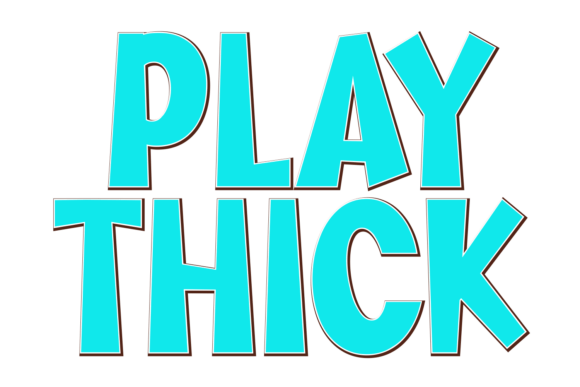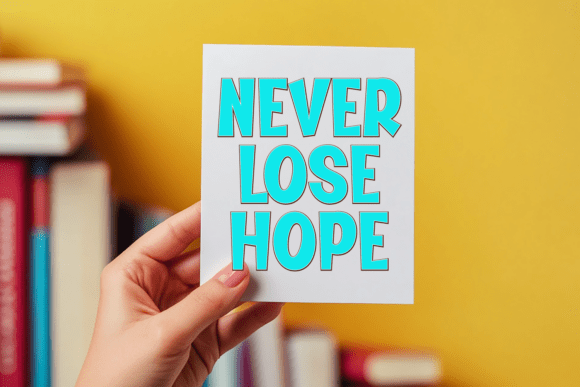
Introduction to Pearl Moon Font
Have you ever been stuck in a creative rut, searching for the perfect font to elevate your design project? The hunt is over. We’re excited to introduce you to Pearl Moon Font, a stunning display font that’s about to become your go-to choice for all your creative endeavors.
Imagine yourself in a vintage record store, surrounded by the sounds of the 70s and 80s. The Pearl Moon Font takes you on a time-travel adventure, infusing your designs with a bubbly and bold charm that’s perfect for cartoon and comic-themed projects. Whether you’re a seasoned designer or just starting out, this versatile font is a valuable addition to your design resource arsenal.
Key Features of Pearl Moon Font
- Transparent background for seamless integration into creative projects
- High-quality, unique design elements perfect for design resources
- Includes 5 styles and 30 glyphs for versatility in design
- Resolution-independent, scalable design for use in various mediums
- Perfect for creative projects requiring a touch of elegance and sophistication
- Supports various languages, including Latin, Cyrillic, and Greek alphabets
Honest Review: Pearl Moon Font
As a designer, I’m always on the lookout for high-quality design resources that can elevate my creative projects. Recently, I had the chance to try out the Pearl Moon Font, and I must say, it’s been a pleasant surprise.
- ✨ Elegant and sophisticated feel
- ✨ Highly customizable
However, I do have to mention that the Pearl Moon Font can be a bit limited in terms of its use cases. It’s perfect for formal and creative projects, but may not be the best choice for more casual or informal designs.
Overall, I’m quite impressed with the Pearl Moon Font. It’s a great addition to my design toolkit, and I’m sure I’ll be using it for many projects to come.
Tips for Getting the Most Out of Pearl Moon Font
For the best results, use the Pearl Moon Font in combination with a high-quality image or design element. You can also experiment with different font sizes and colors to create a unique and eye-catching design.
The Pearl Moon Font is perfect for creating invitations, greeting cards, and other design elements for special occasions. It’s also great for branding and marketing materials, such as business cards and brochures.